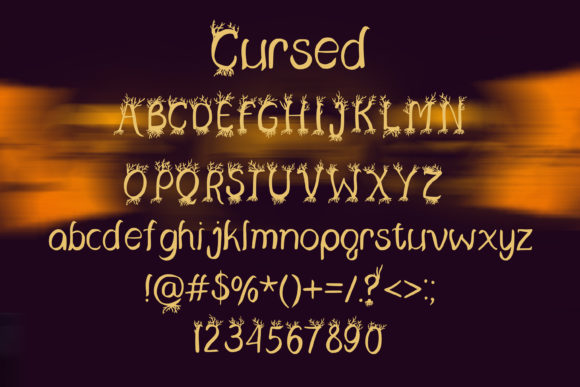
Cursed Font
About Cursed Font
Cursed is a horror handwritten font. It features a spooky look that makes it perfect for any Halloween-themed project! Get inspired with its unique look and take your designs to the next level!